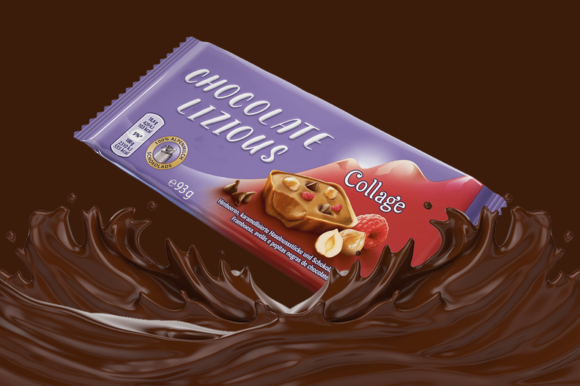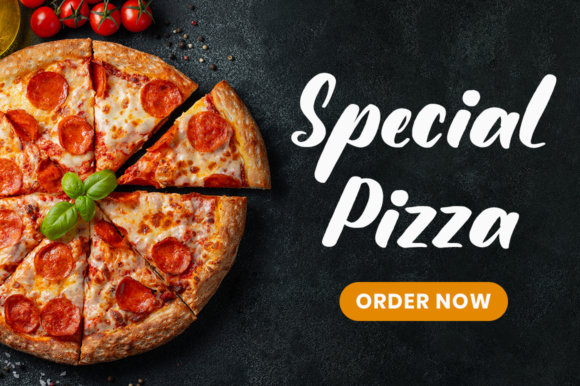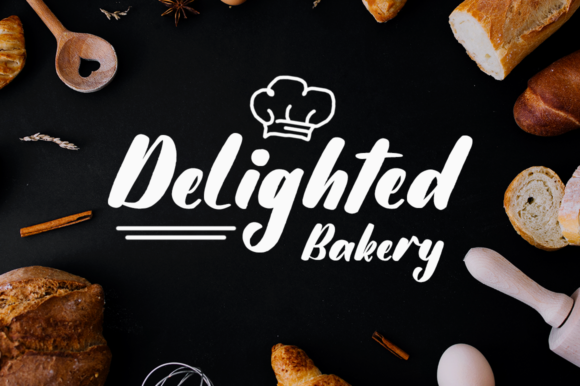
The Joy of Gotta Font: Adding a Touch of Whimsy to Your Designs
I still remember the design project that led me to discover Gotta Font. I was working on a children’s party invitation, and I wanted to create something that would make the kids (and their parents!) excited. I had a clear vision of a playful, colorful design, but I was struggling to find the perfect font to match. That’s when I stumbled upon Gotta Font, and it was love at first sight! ✨
Gotta is a cute and quirky handwritten font that adds an incredibly joyful touch to any design. Its unique charm makes it perfect for creative projects that need a bit of personality. In this article, I’ll share my honest review of Gotta Font, provide a practical guide on how to use it, and explore similar fonts that you might enjoy.
- ✨ Unique and playful character that adds a touch of whimsy to any design
- ✅ Easy to read, even in smaller sizes
- 🎉 Works well for a variety of design projects, from invitations to social media graphics
- 💕 Friendly and approachable feel that’s perfect for designs that need a personal touch
While Gotta Font is an amazing addition to any design, there are a few things to keep in mind: 🤔
- ⚠️ Some letters may appear a bit irregular or imperfect, which can be a deliberate design choice but might not work for every project
- ⚠️ Limited availability of special characters and glyphs, which might limit its use in certain designs
The Story Behind Gotta Font
Gotta Font was designed with the intention of creating a playful and joyful font that would bring a smile to people’s faces. Its creator, a talented type designer, was inspired by the beauty of handwritten letters and the imperfections that make them unique. The result is a font that’s both fun and functional, perfect for designs that need a bit of personality.
| Font Name | Gotta Font |
| Author | FatmaStudio |
Q: What type of designs is Gotta Font best suited for?
A: Gotta Font is perfect for designs that need a playful and joyful touch, such as children’s party invitations, social media graphics, and craft projects.
Q: Is Gotta Font available in different weights or styles?
A: Currently, Gotta Font is available in a single weight. However, you can experiment with different OpenType features and glyphs to create variations.